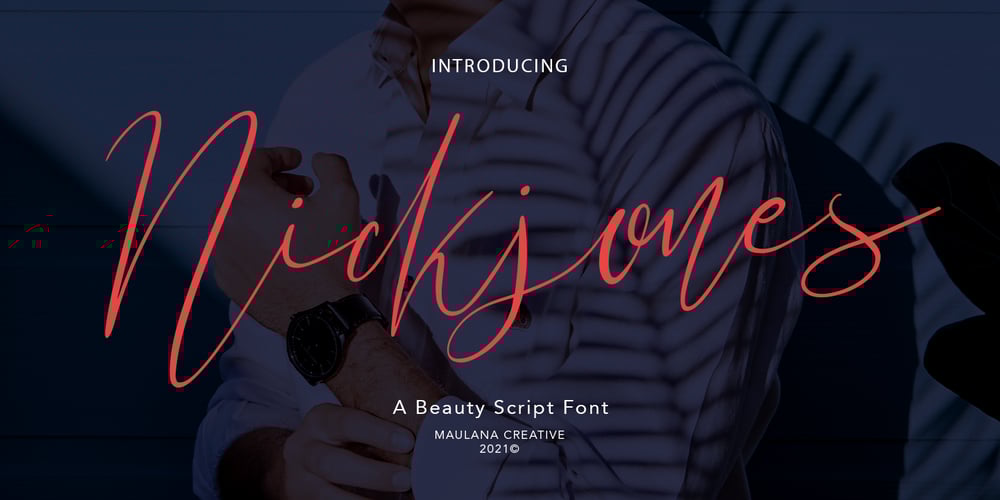
Nickjones
Nickjones font
Nickjones Font Family was designed by Gilang Maulana and published by Maulana Creative. Nickjones contains 1 styles and family package options. Nickjones is feminine script font, with clean thin contrast stroke, super slanted and fun character. It has Opentype features ligatures of character, To give you an extra creative work. Nickjones font support multilingual more than 100+ language. This font is good for logo design, Social media, Movie Titles, Books Titles, a short text even a long text letter and good for your secondary text font with sans or serif. Make a stunning work with Nickjones font. Cheers, MaulanaCreative